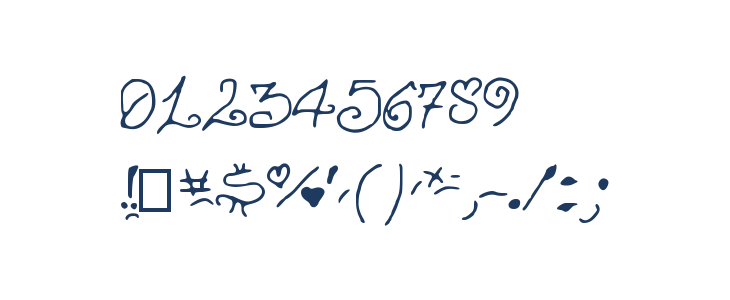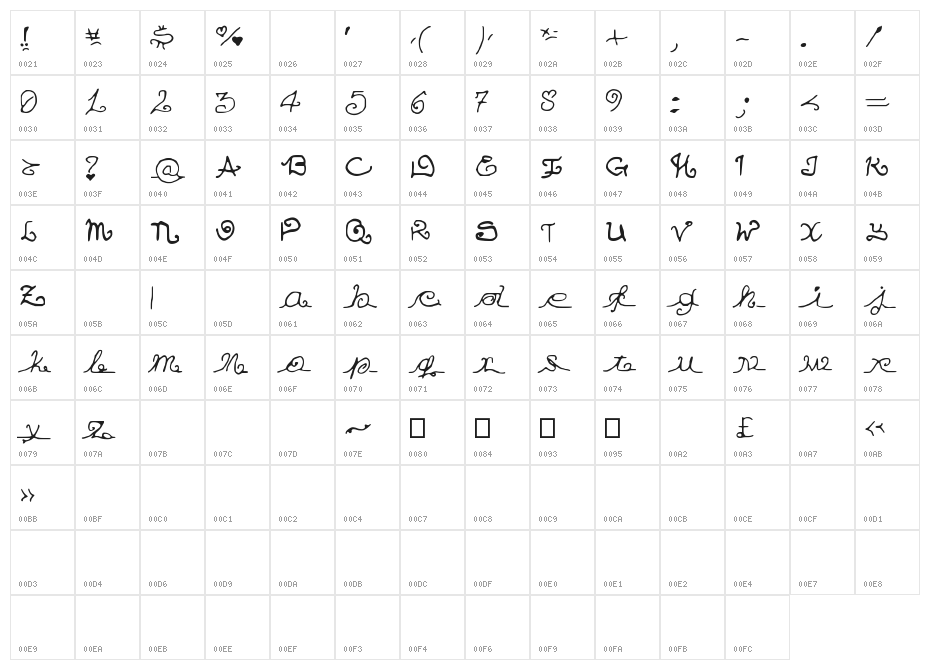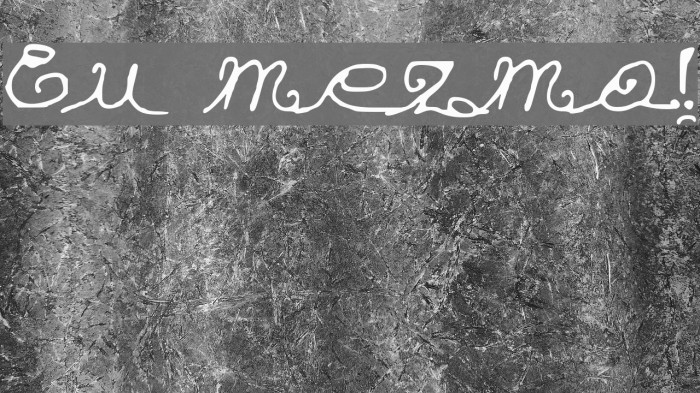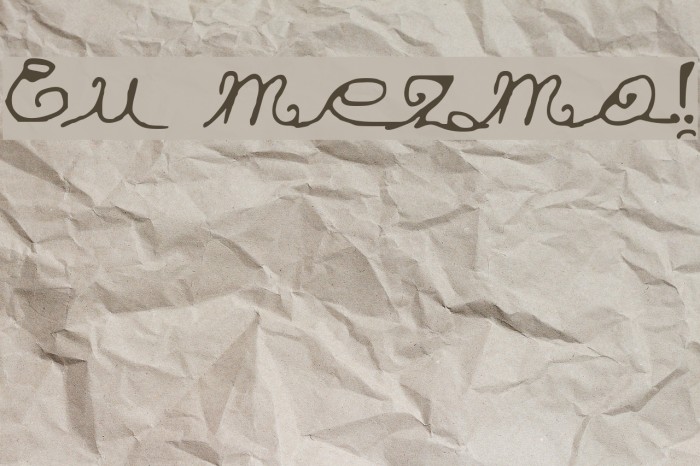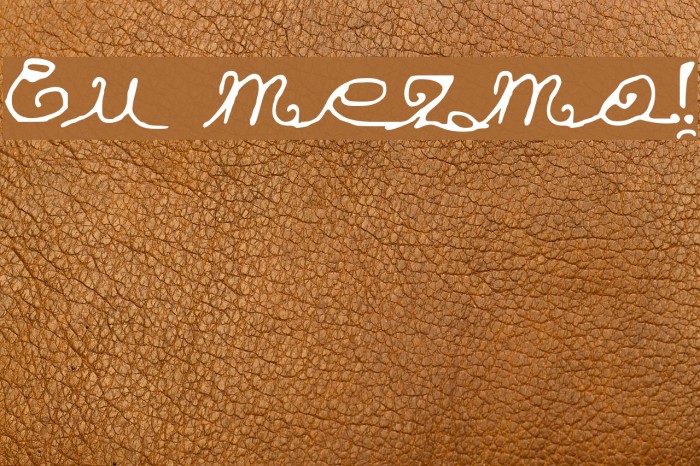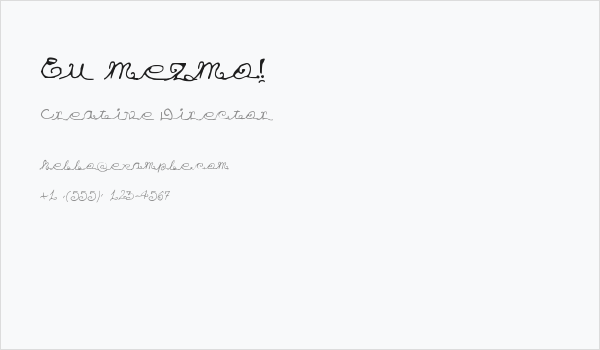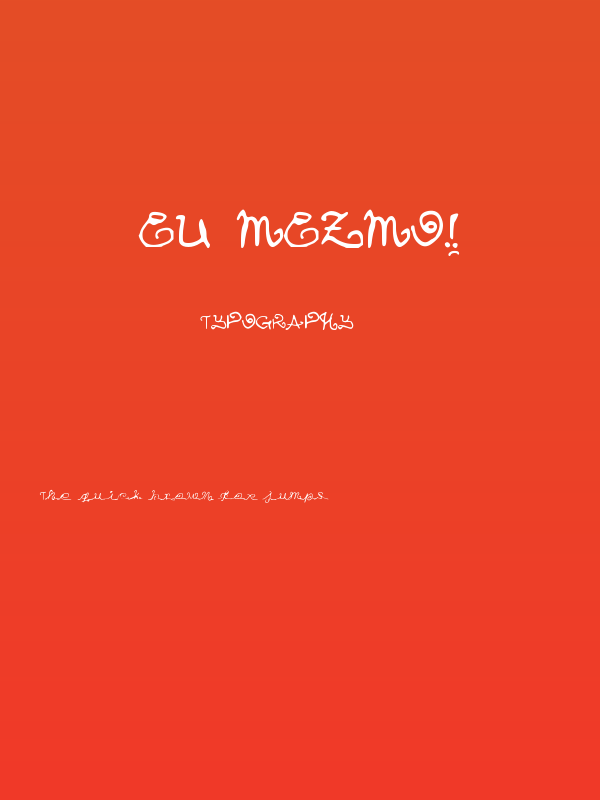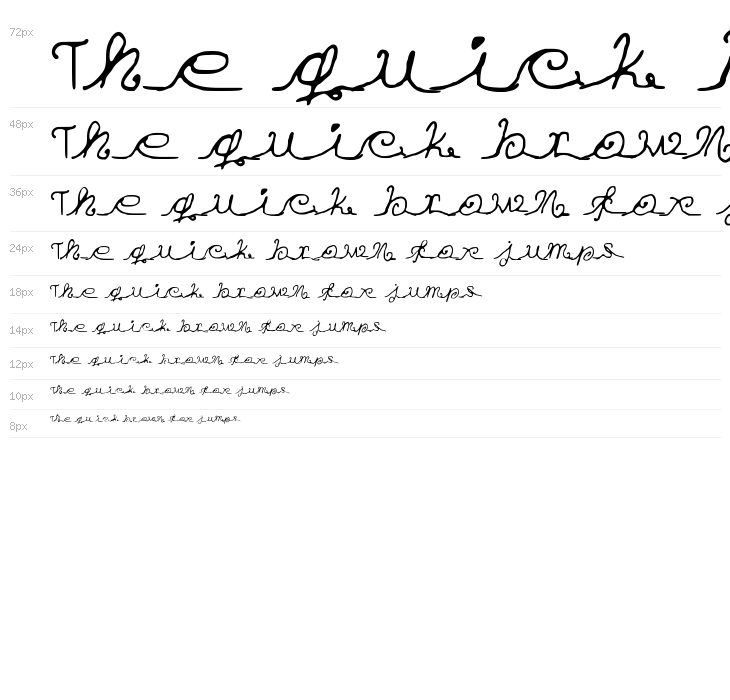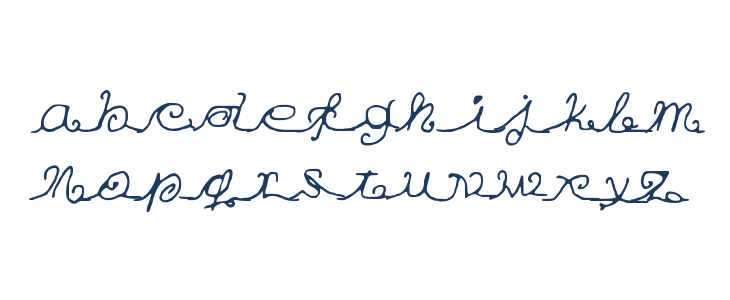
Eu mezmo! Font
Eu mezmo! Description
This font exhibits a playful and whimsical style, characterized by its curly and looping strokes. Each letter has a unique, almost hand-drawn quality, with varying thickness that adds to its charm. The uppercase letters are bold and prominent, while the lowercase letters maintain a consistent flow, creating a sense of movement across the text. Numbers and special characters follow the same playful design, making them stand out. The overall appearance is both artistic and approachable, suitable for creative and informal projects.
| Overall Style | Whimsical, Artistic |
| Proposed Projects | Ideal for children's books, greeting cards, playful branding, and creative posters. |